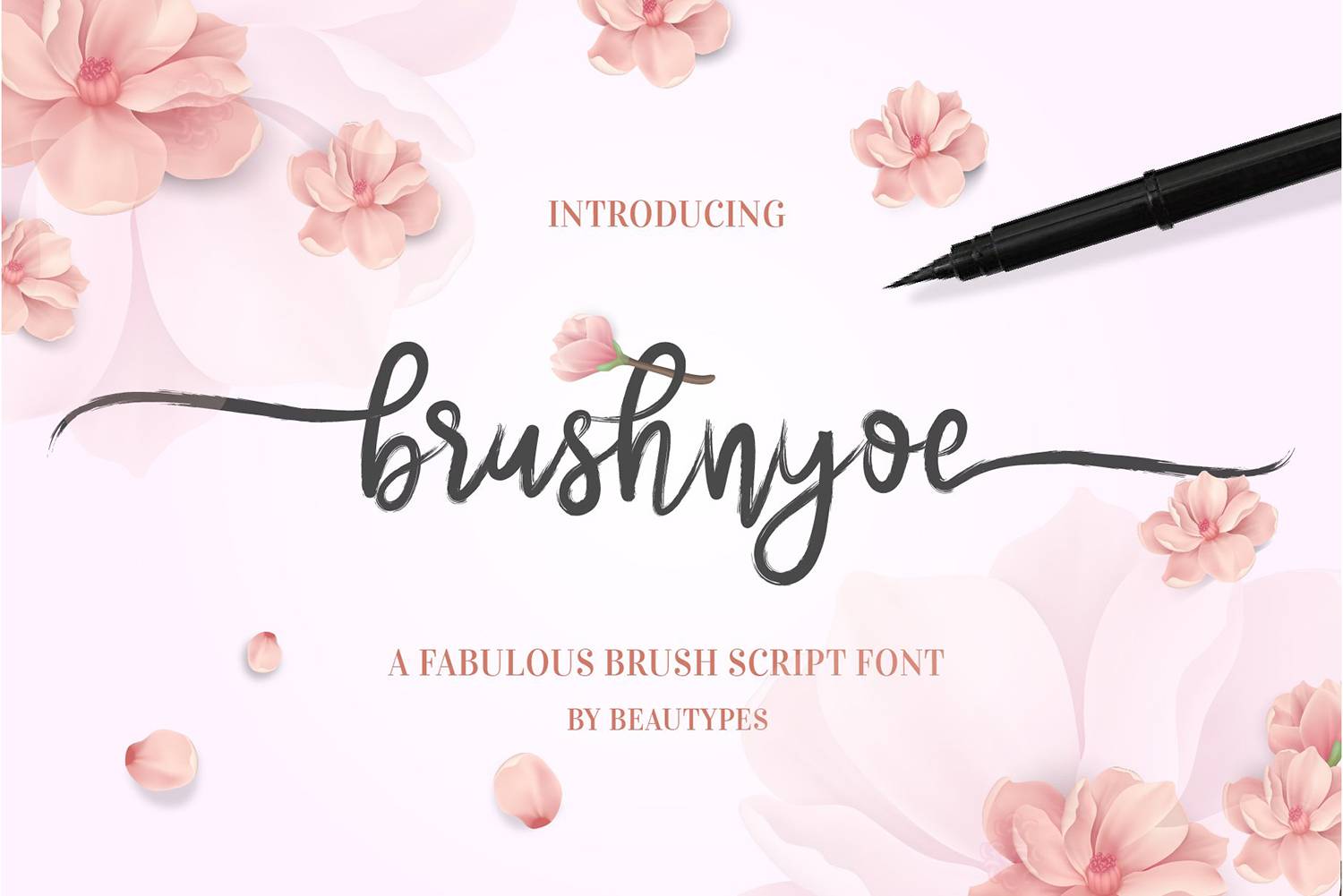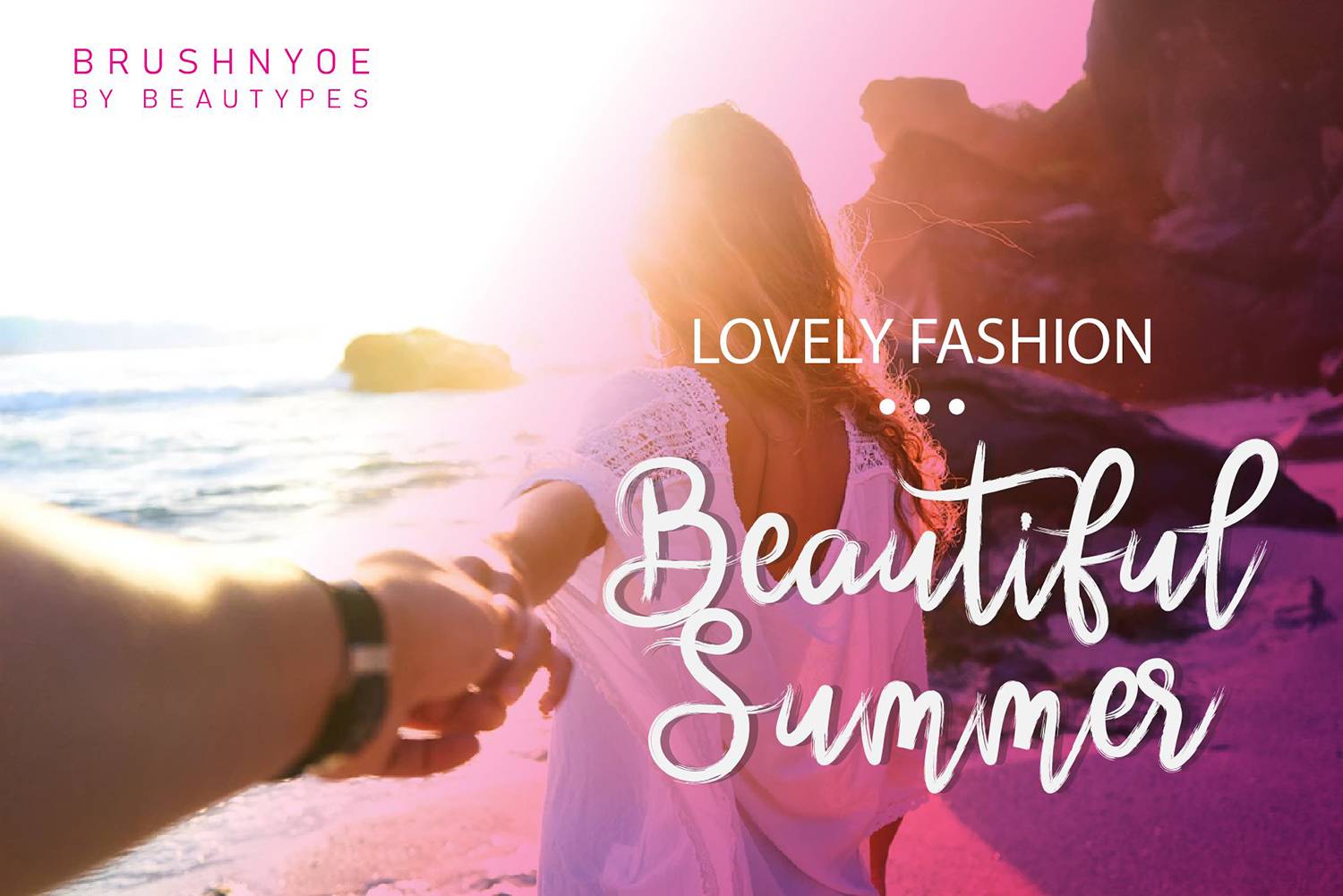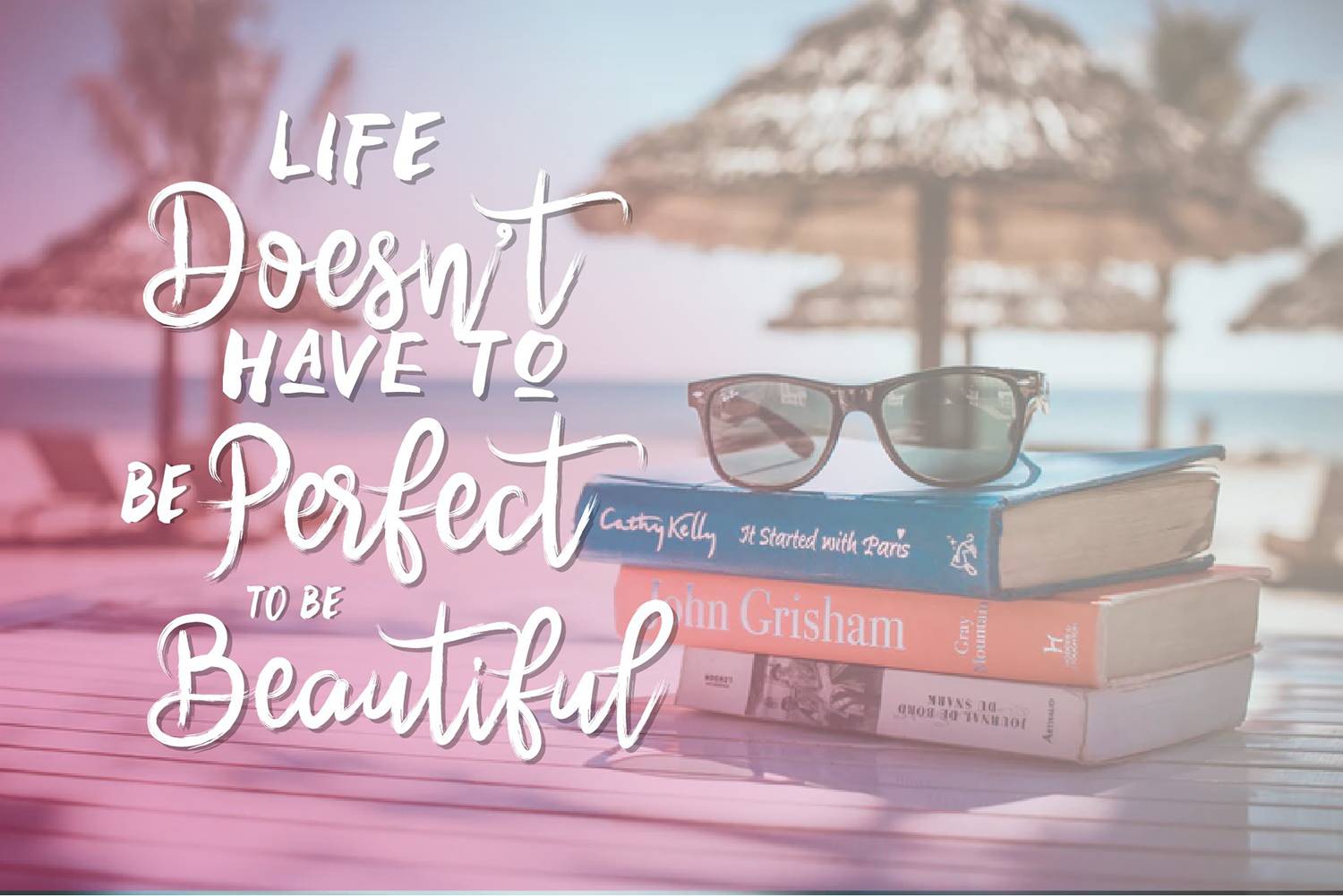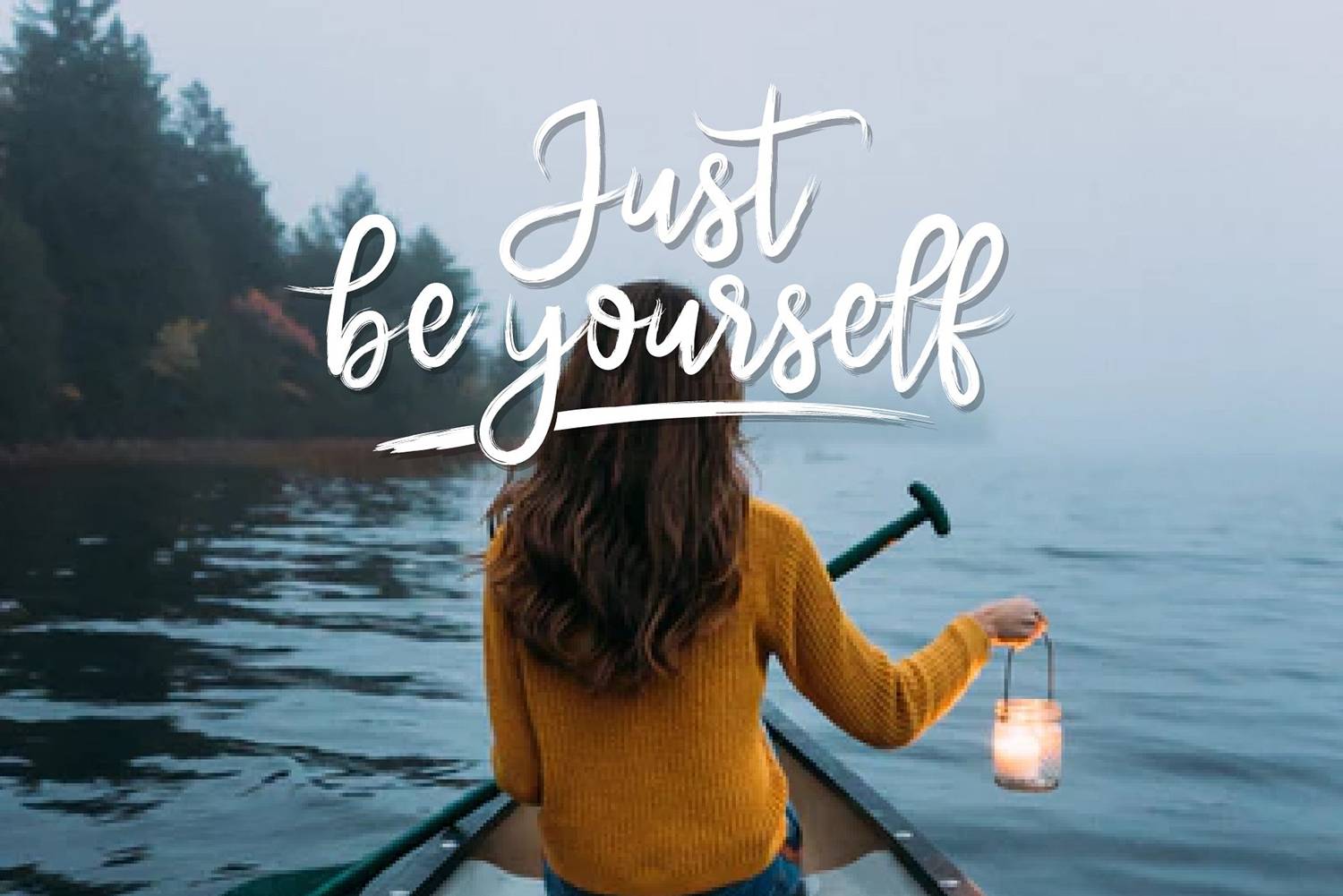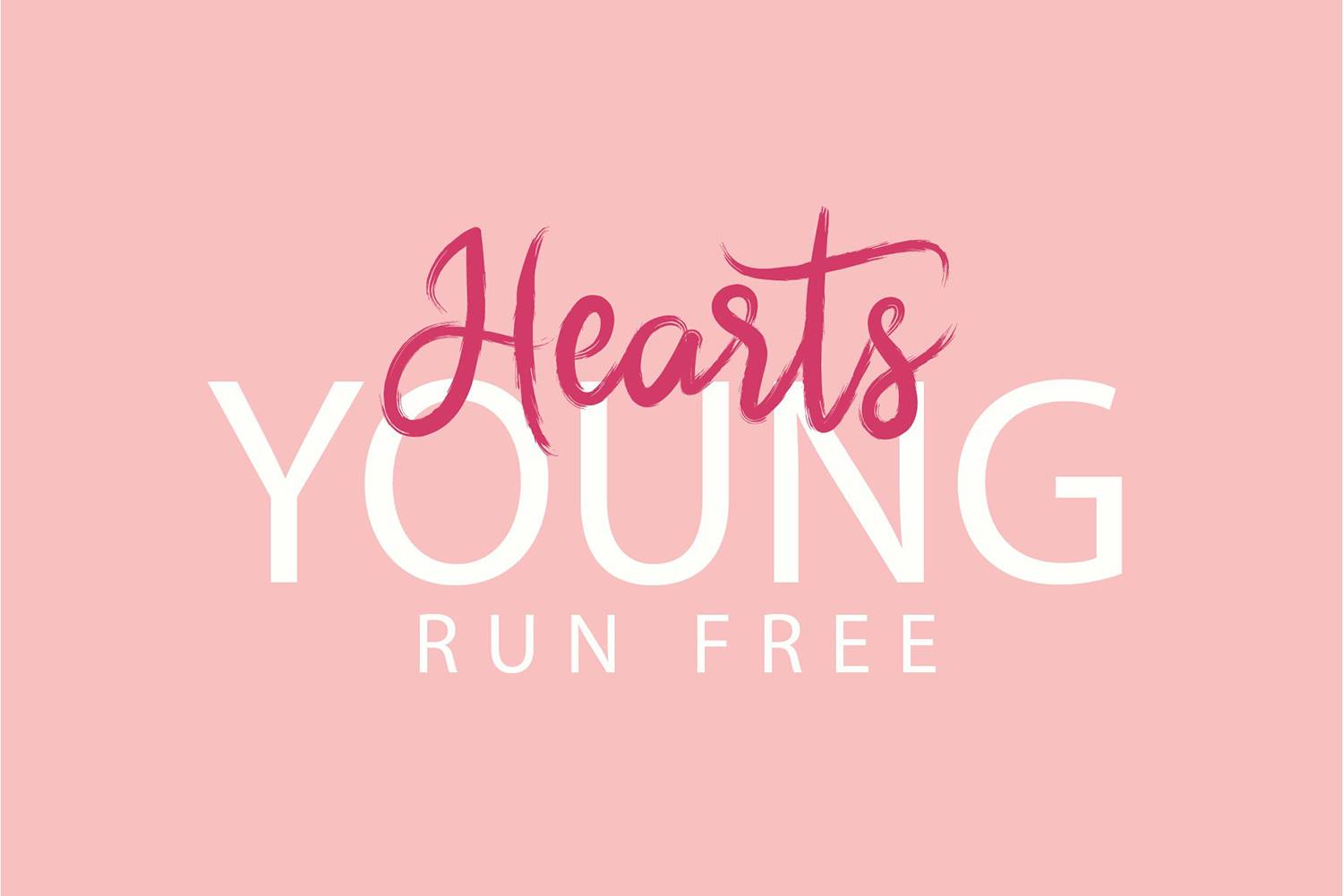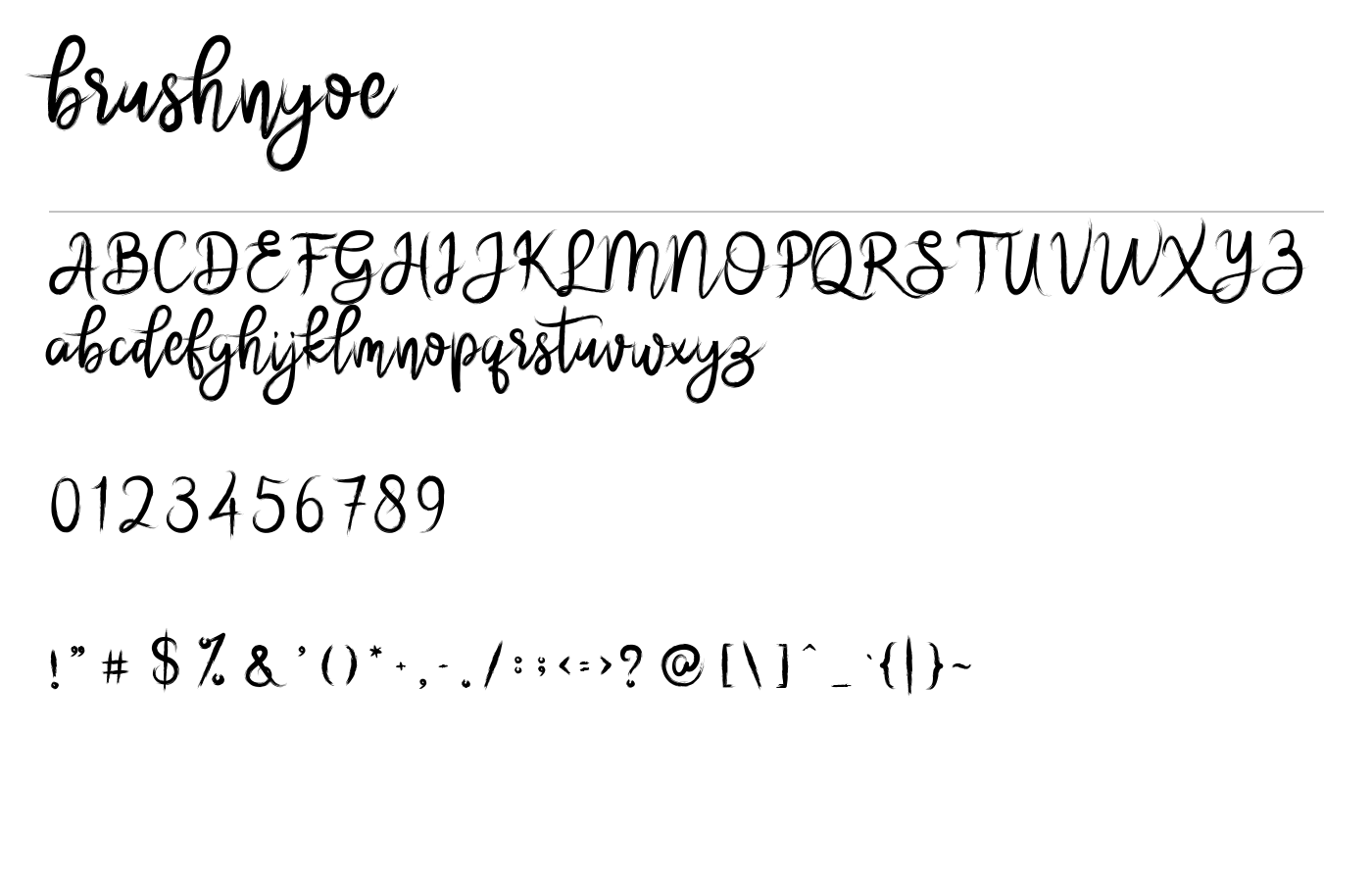
Brushnyoe is a playful and elegant handwritten script font that combines smooth, flowing strokes with a natural brush texture, creating a warm and personal feel. Its medium weight, casual style, and unique character shapes make it perfect for creative branding, invitations, and stylish headlines that aim to convey friendliness and artistic flair. This font works especially well in designs that benefit from a touch of handmade charm and lively personality.
Brushnyoe Font
About Brushnyoe Font
| Font family | Brushnyoe Font |
| Designer | Rizaldi Wandani |